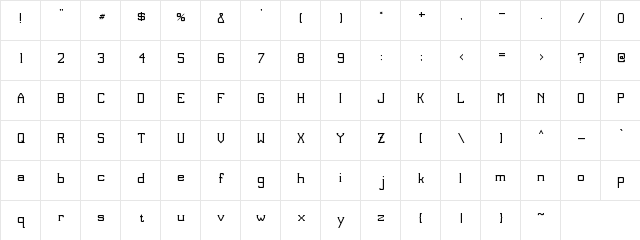
Pie-rat Regular
| Designer | vance16 |
Design Context for Pie-rat Typeface
Pie-rat is a composed and adaptable typeface that performs quietly and consistently across a wide range of design contexts.